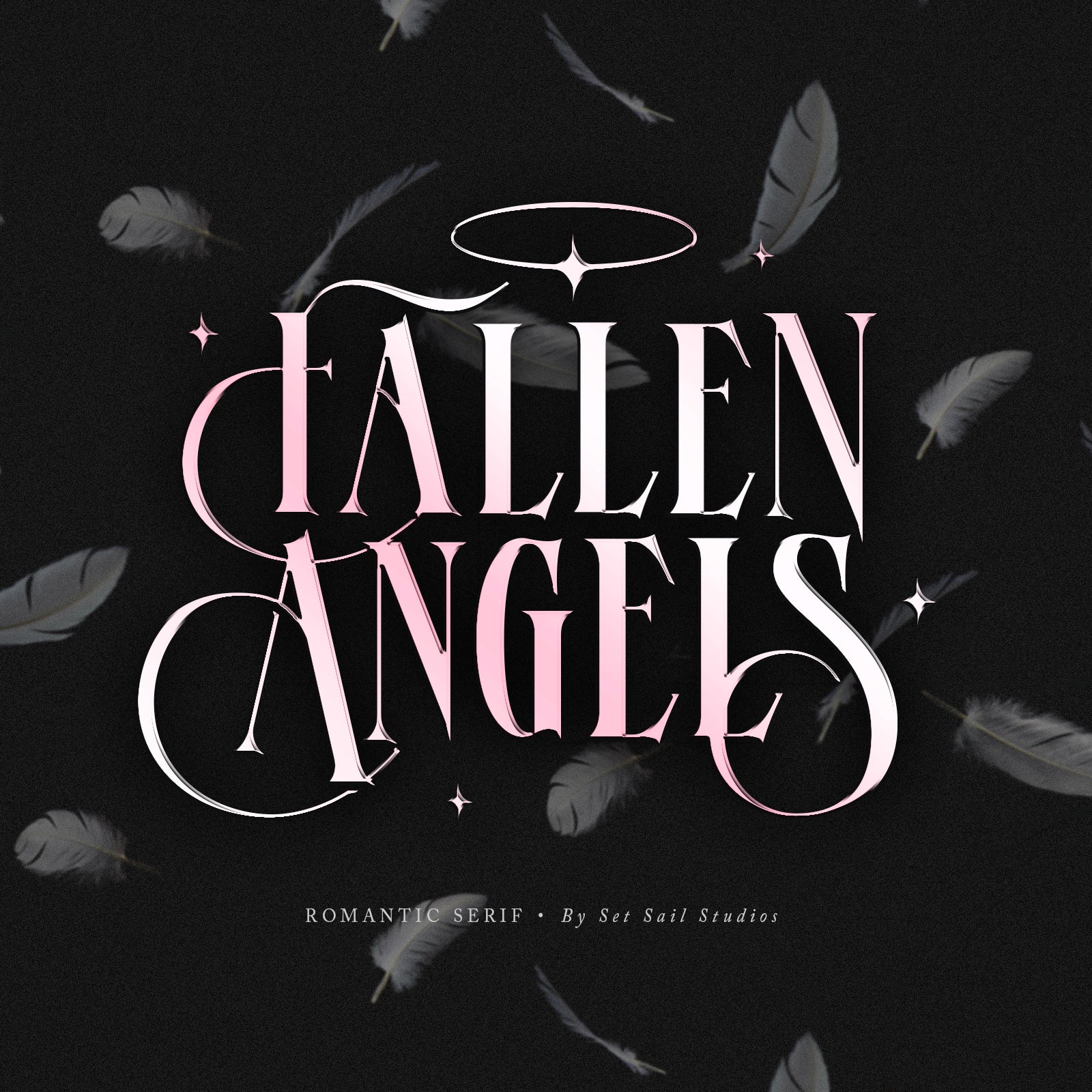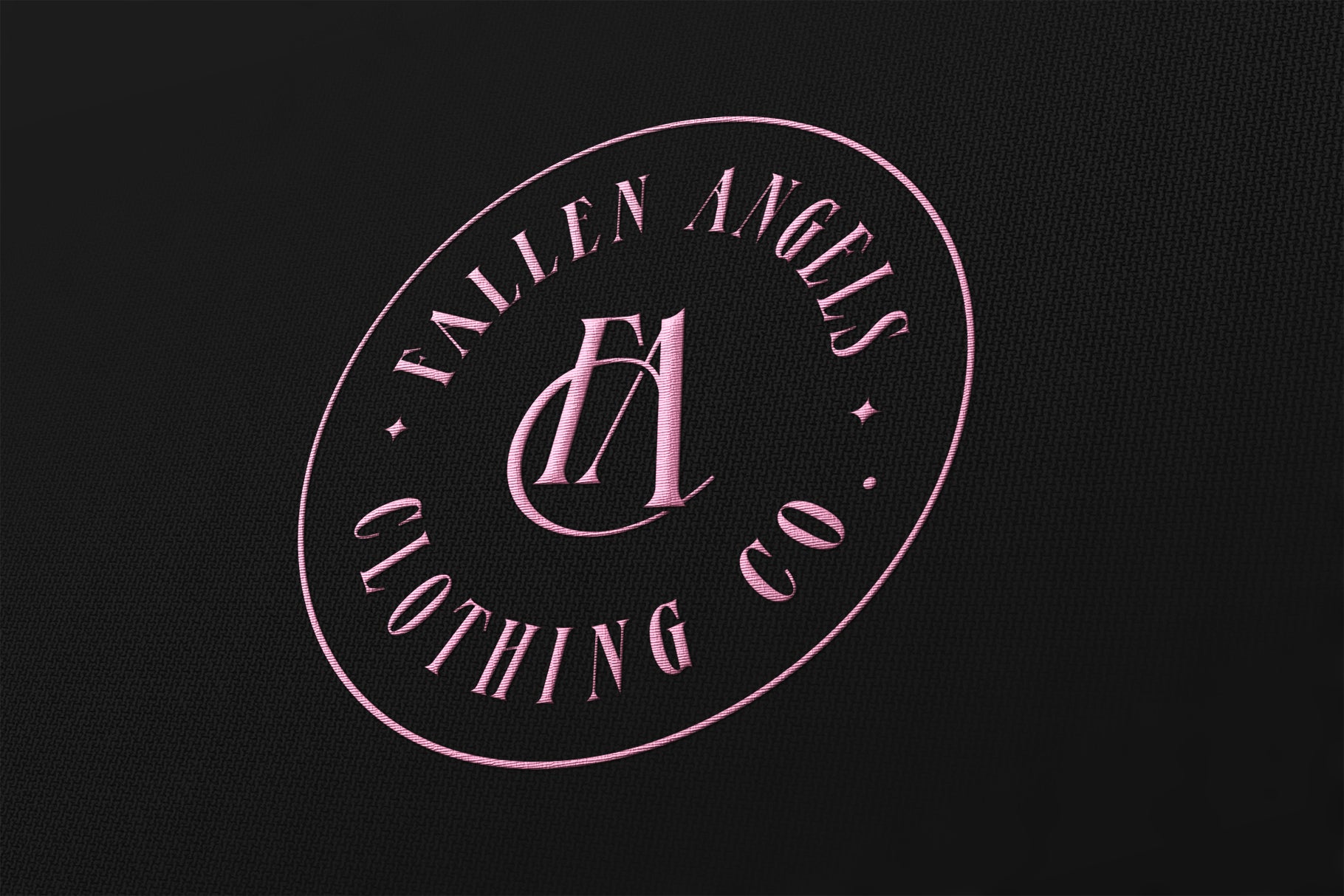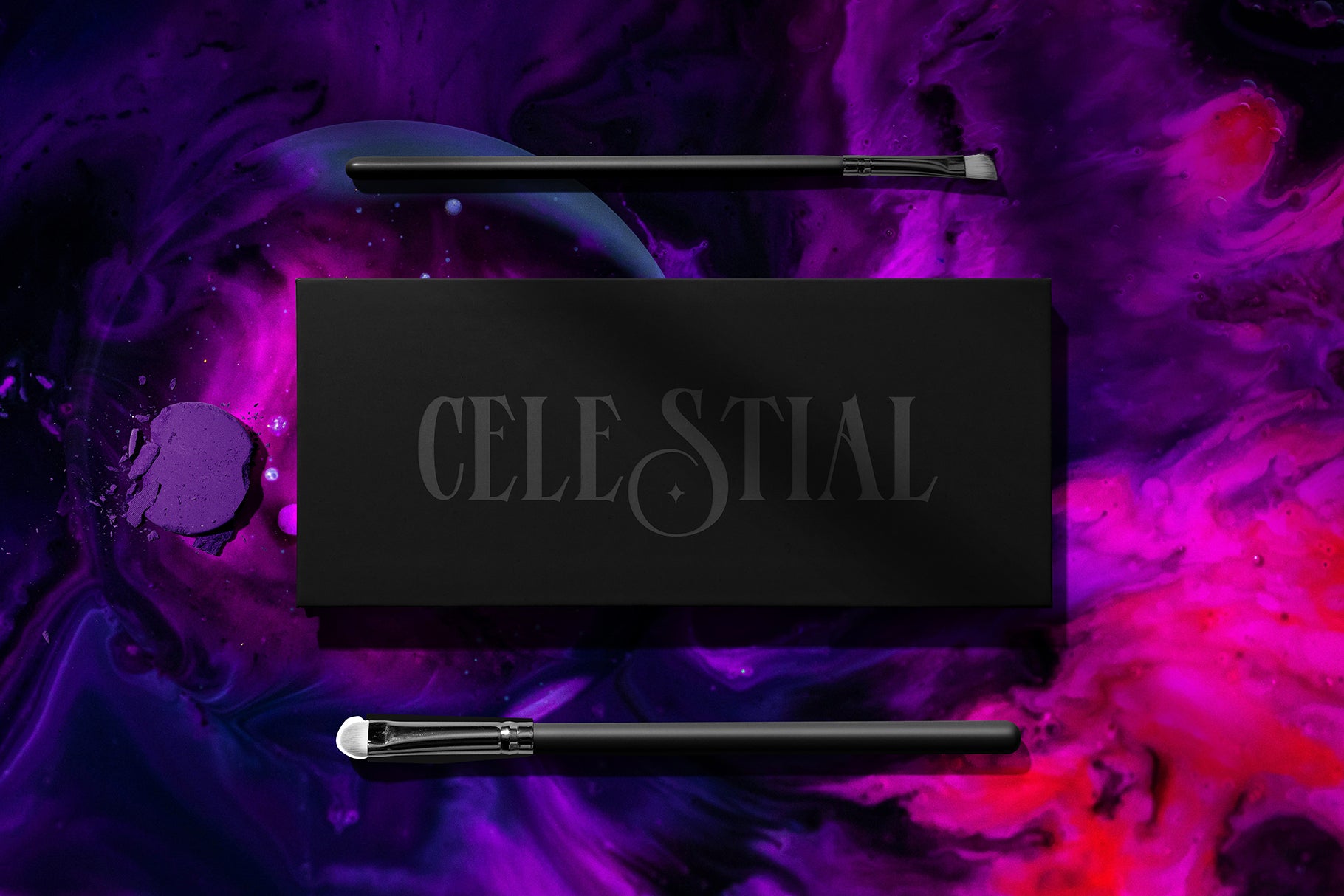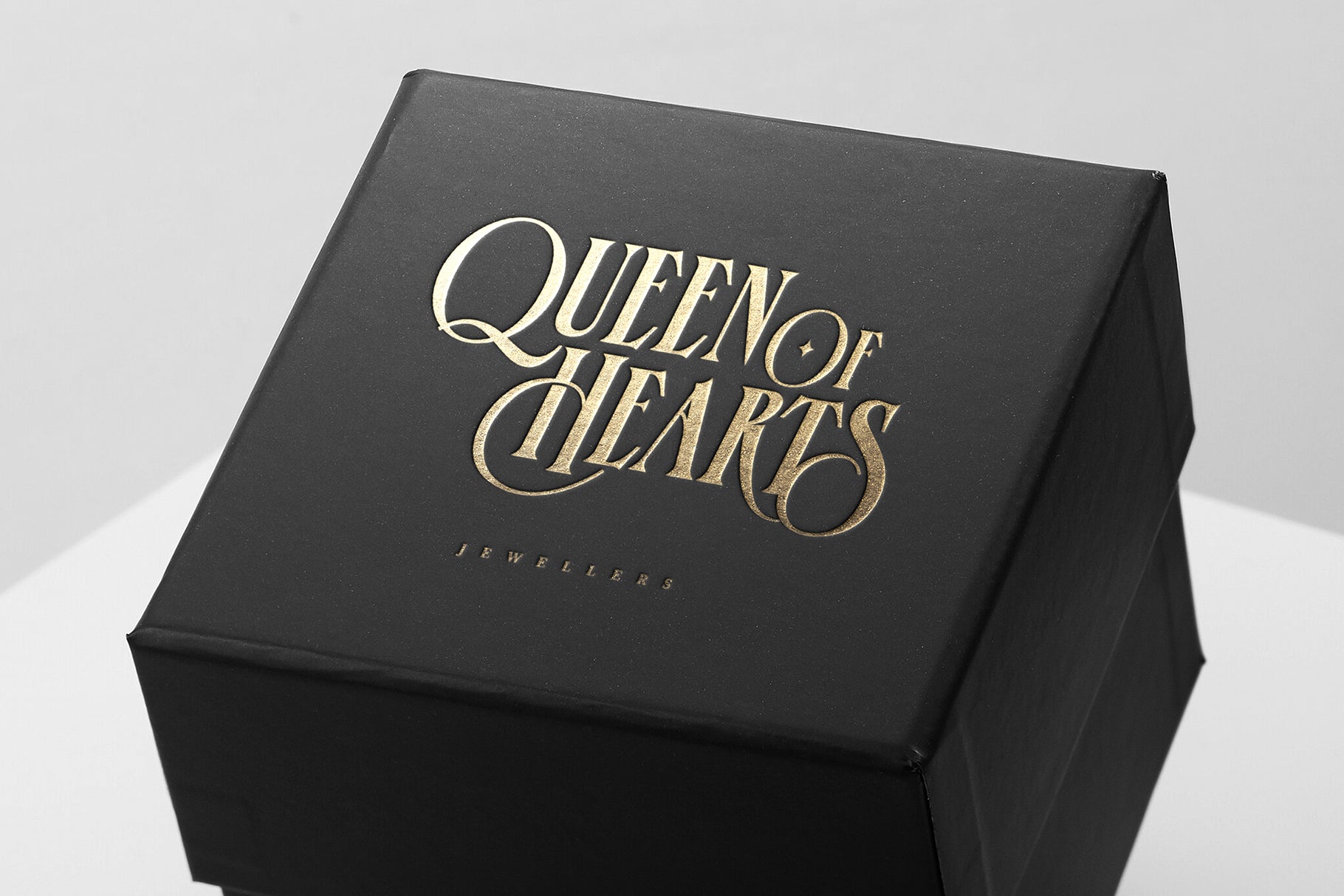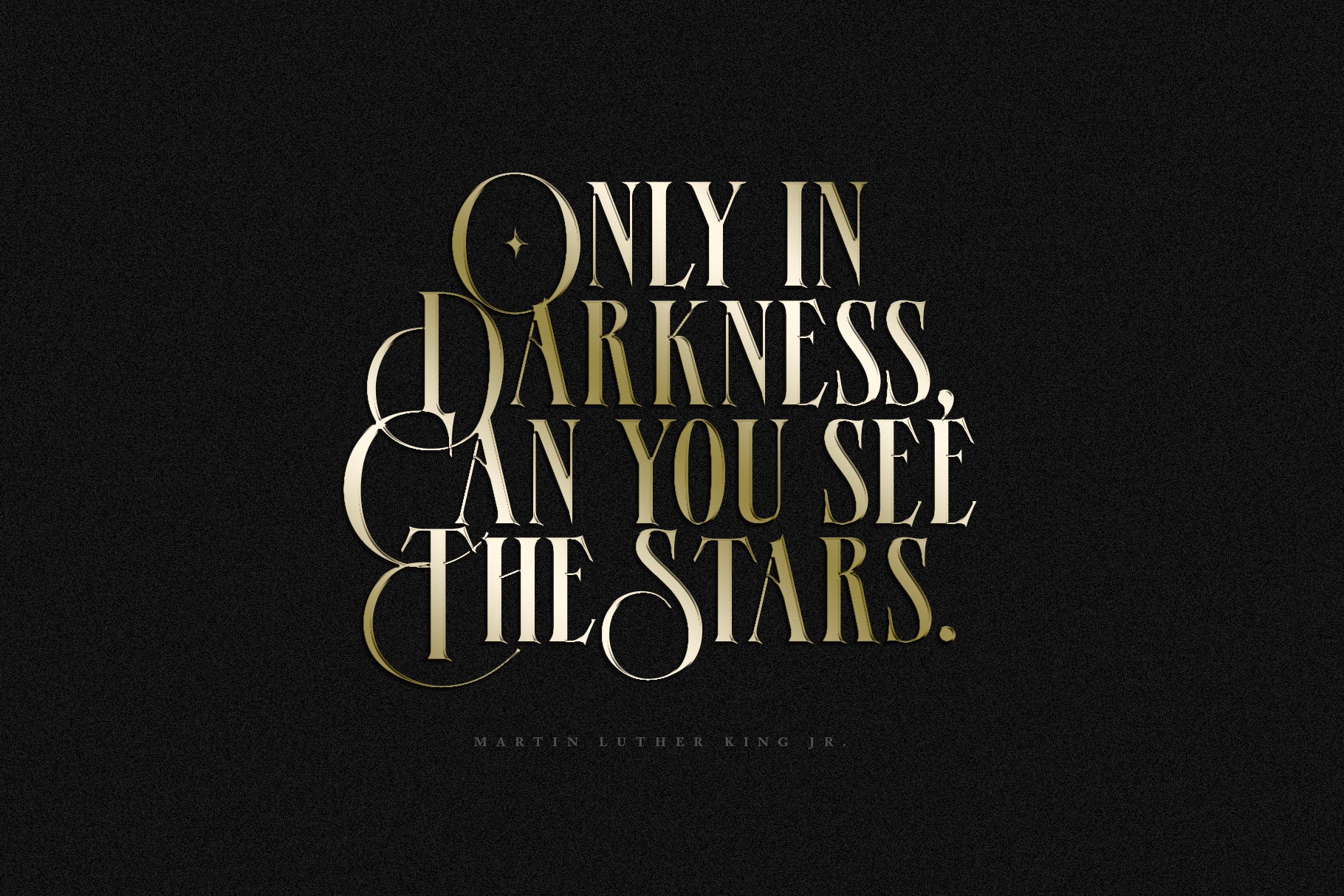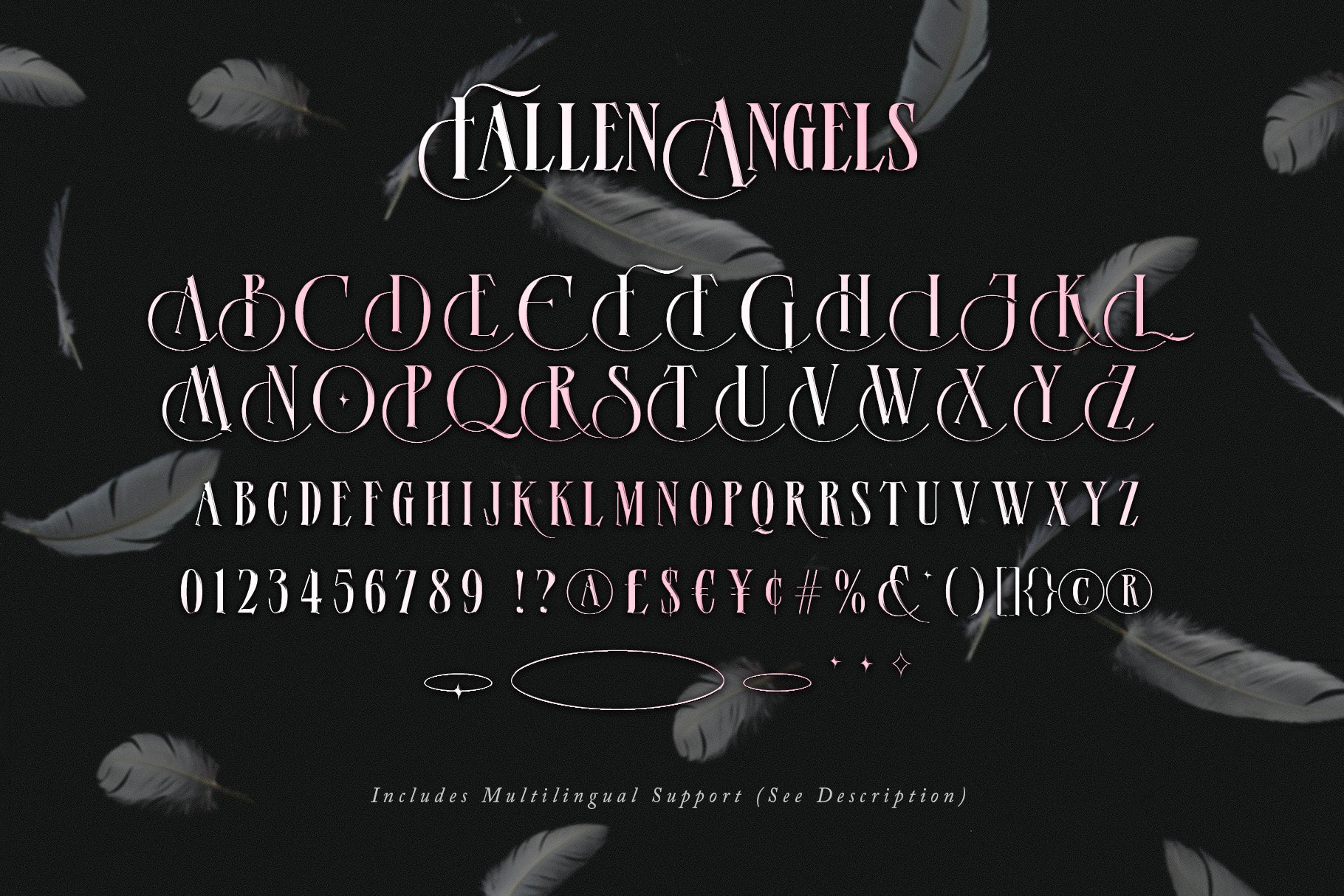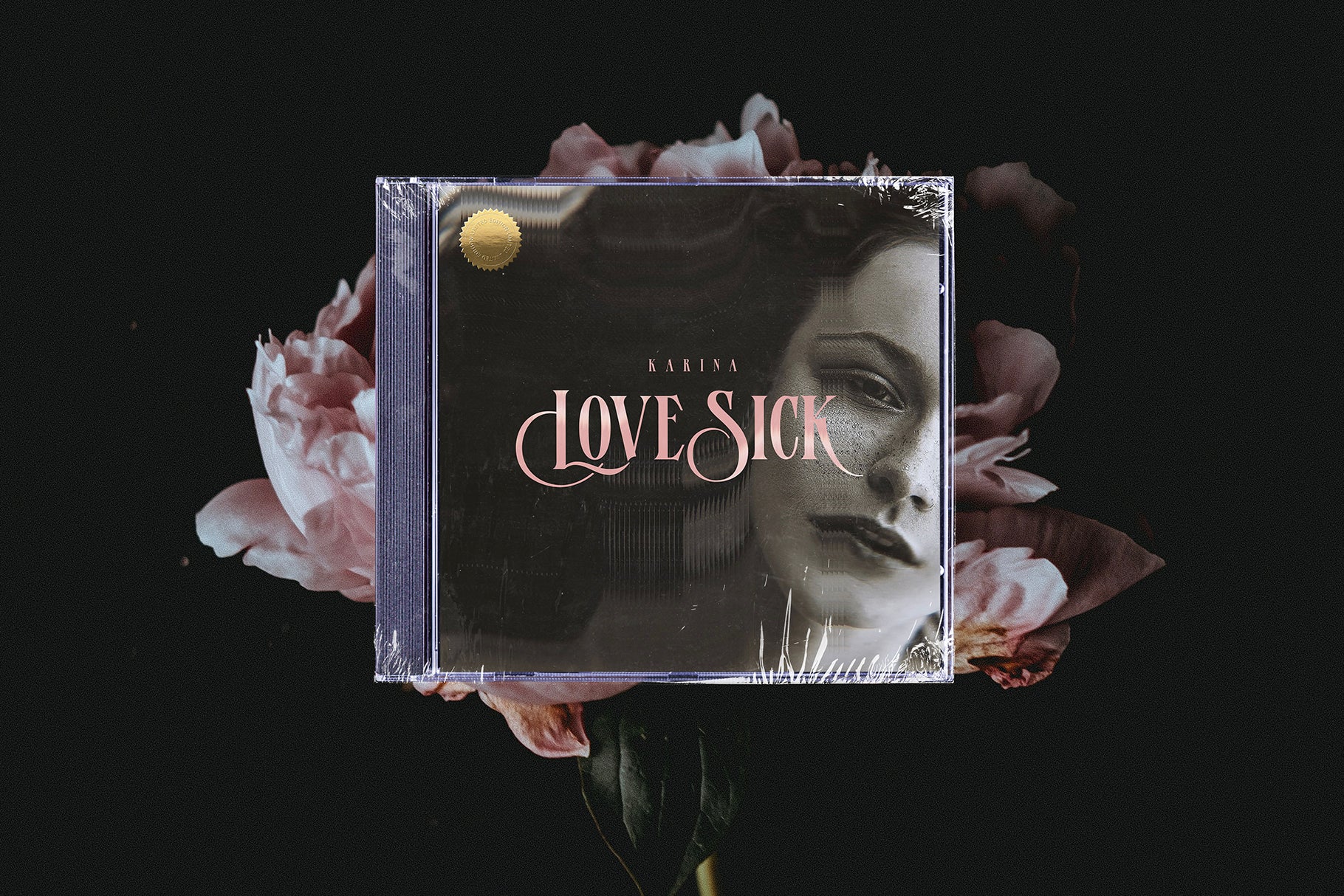
Fallen Angels Serif Font
Fallen Angels Serif Font is a modern serif typeface featuring stylized capitals that combine romantic curves with a strong character set. It includes alternate characters for E, F, r, and k, as well as six icons (three halos and three stars), and supports multiple languages including English, French, Spanish, and more.